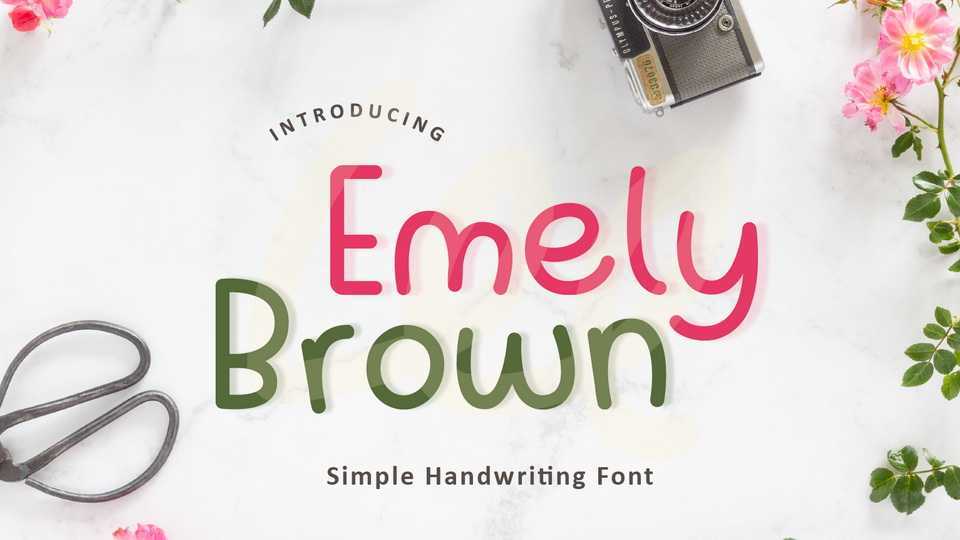
Download Emely Brown font, a delicate, elegant and flowing handwritten typeface. Emily Brown font has beautiful and well balanced characters and as a result, it matches a wide pool of designs.
Designer: Dewi Purwaningrum